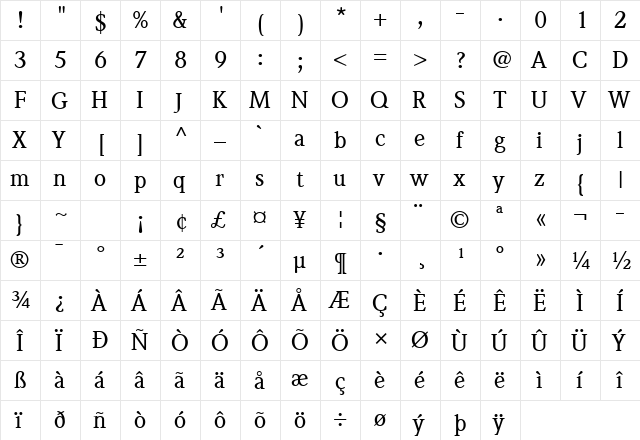
ITC Weidemann Com Medium
| Foundry | Linotype GmbH |
| Designer | Kurt Weidemann |
Design Context for ITC Weidemann Com Typeface
ITC Weidemann Com offers clean, dependable letterforms without strong stylistic allegiance, making it a practical choice for designers who need flexibility.